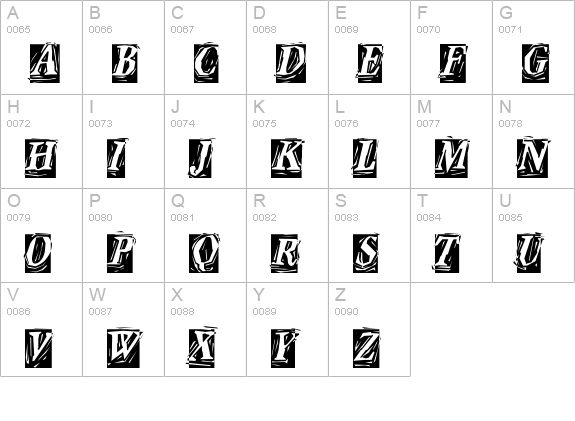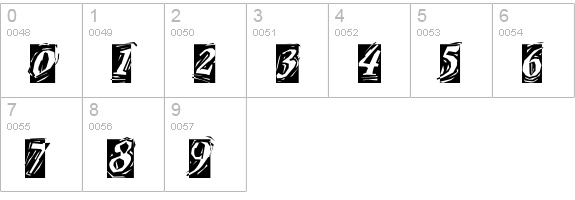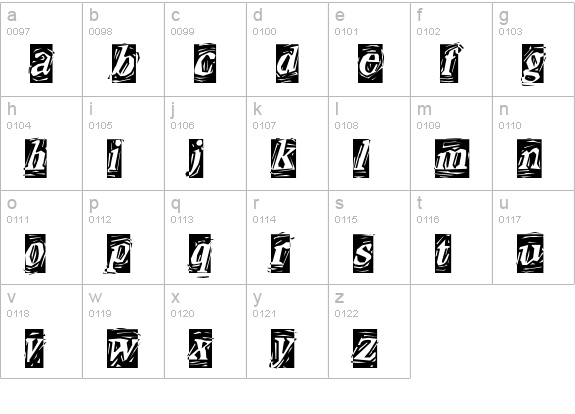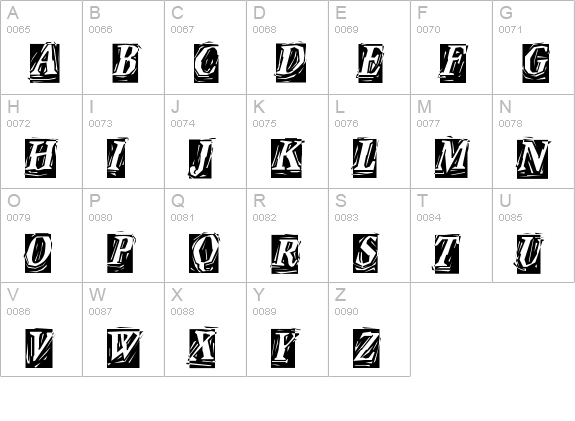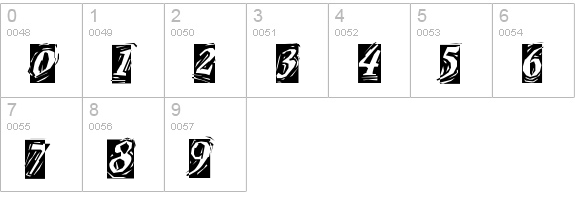
Craft BlackReversed Font Details
Craft BlackReversed font is a stunning display typeface that exudes sophistication and elegance. With its bold and modern design, this font is perfect for creating eye-catching headlines, logos, posters, and more. The unique reversed style adds a touch of creativity and intrigue to any design project. Craft BlackReversed font is versatile and can be used for both digital and print applications. The best part is that Craft BlackReversed font is available for free download at FontsMarket.com. This means you can easily access this stylish font without any cost, making it a great choice for designers on a budget. Don't miss out on the opportunity to elevate your designs with the striking beauty of Craft BlackReversed font. Download it today and add a touch of sophistication to your projects!